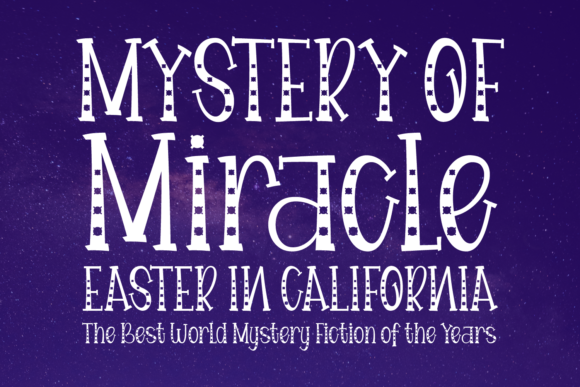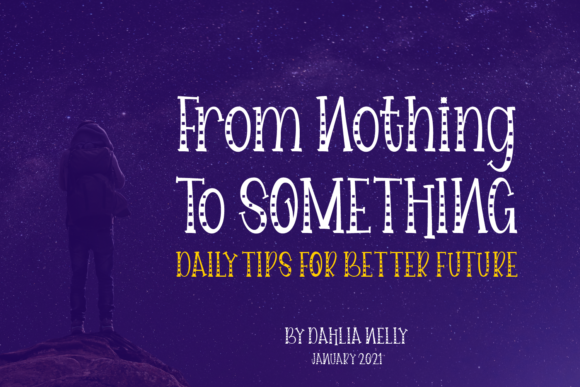
Introduction to Now or Never Font
Have you ever stared at a blank canvas, waiting for the perfect font to bring your creative project to life? That’s exactly what happened to me when I discovered the Now or Never Font. Its bold, quirky charm instantly captured my attention, and I knew I had to share it with fellow designers.
The Now or Never Font is more than just a stylish addition to your designs – it’s a valuable resource that can elevate your creative work to the next level. With its high-quality design and transparent background, it’s perfect for adding a touch of sophistication to your projects. Whether you’re working on a free download or a paid design, this font is sure to impress.
As a designer, you understand the importance of having the right tools at your disposal. That’s why I’m excited to dive into the world of the Now or Never Font and explore its many possibilities.
Key Features of Now or Never Font
- Unique, bold, and modern design ideal for creative projects and bold statements.
- High-quality design with a transparent background, making it perfect for overlaying on images or videos.
- Designed to be highly legible, even at small font sizes, ensuring your message stands out in any creative project.
- Resolution-independent, ensuring crisp and clear text at any resolution, from low to high DPI.
- Perfect design resource for graphic designers, digital artists, and anyone looking for a bold and eye-catching font.
Honest Review: Now or Never Font
As a designer, I’m always on the lookout for unique and high-quality design resources. The Now or Never Font caught my attention, and I was excited to give it a try. Here’s my honest review.
- Unique and edgy design style: The Now or Never Font has a bold and playful look that’s perfect for creative projects that need a bit of attitude.
- High-quality font files: The font files are crisp and clear, with no jagged edges or pixelation issues.
- Transparent background: This feature is super useful for designers who need to create graphics with transparent backgrounds.
- Limited character set: The font only includes a limited character set, which may not be ideal for designers who need a font with a wide range of characters.
- No font variations: There are no font variations available, which may limit the font’s versatility.
Overall, I think the Now or Never Font is a great addition to any designer’s toolkit. While it may have some limitations, its unique design style and high-quality font files make it a valuable resource for creative projects. If you’re looking for a bold and edgy font, I’d definitely recommend giving it a try.
How to Use Now or Never Font
The Now or Never Font is a high-quality, free download design resource ideal for creative projects requiring a bold and striking typography. This versatile font can be used for various applications, including graphic design, digital art, and even print materials.
Use the Now or Never Font on a transparent background to create a striking visual effect.
Combine the font with other design elements, such as images or graphics, to add depth and interest to your project.
The Now or Never Font is particularly well-suited for:
Marketing materials, such as flyers and brochures
Social media graphics and advertisements
Web design and development projects